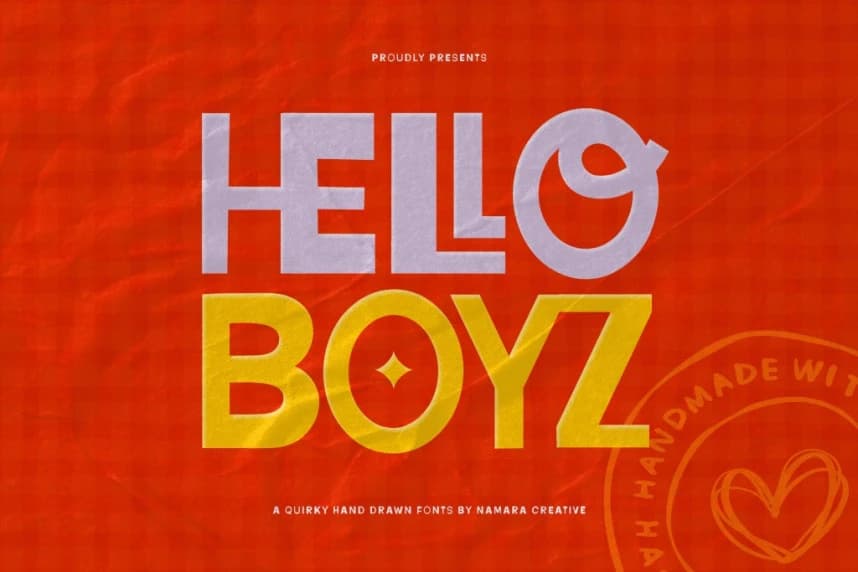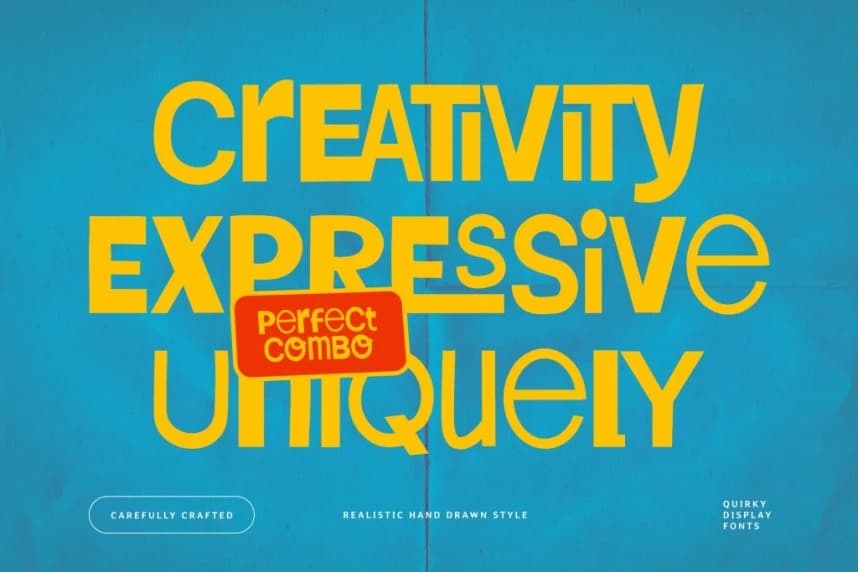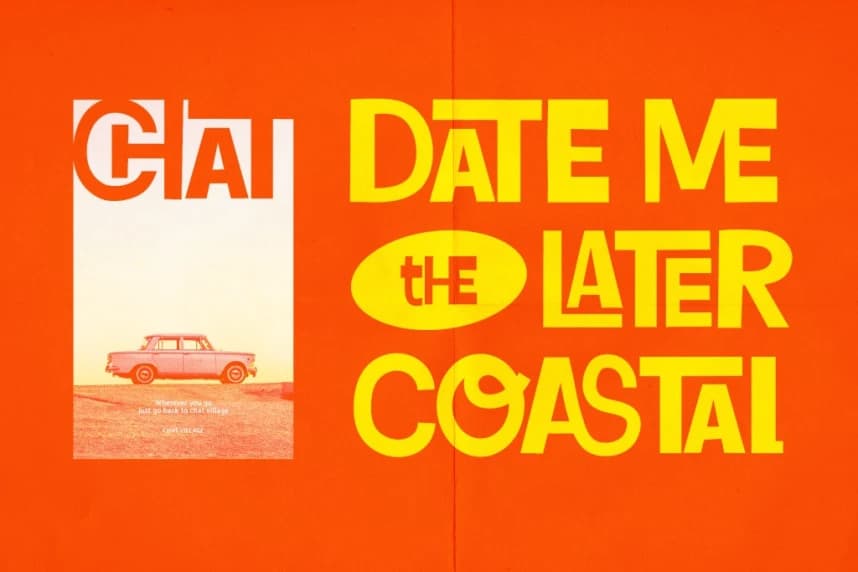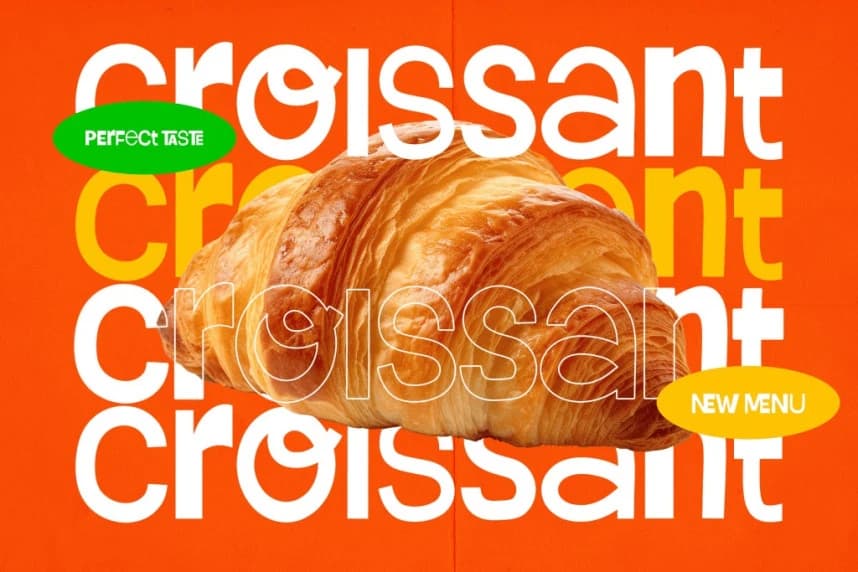
Hello Boyz Font
Hello Boyz Font, a meticulously crafted display font that blends a fun, hand-drawn aesthetic with a bold and confident presence. This quirky typeface is designed to stand out, offering a unique combination of rounded letterforms and a subtle